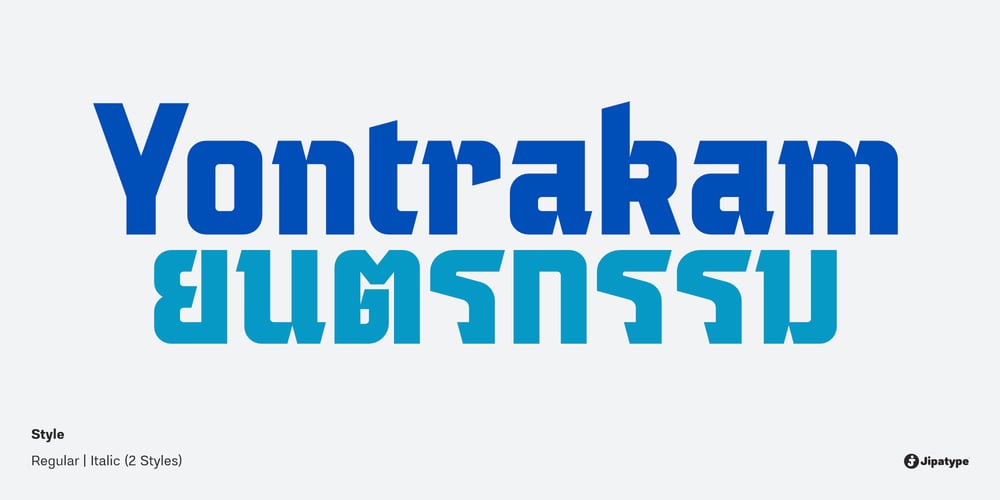
Yontrakam Font Family was designed by Anupap Jaichumnan and published by Jipatype. Yontrakam contains 2 styles and family package options. Yontrakam is a bold display font with a sharp and sleek appearance, exuding a futuristic and sci-fi vibe. Ideal for conveying special emphasis in diverse media, including posters, packaging, and more.